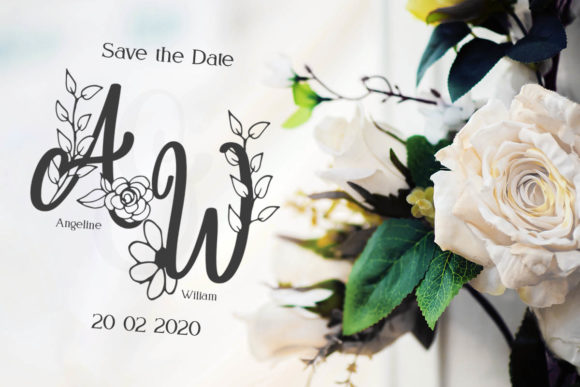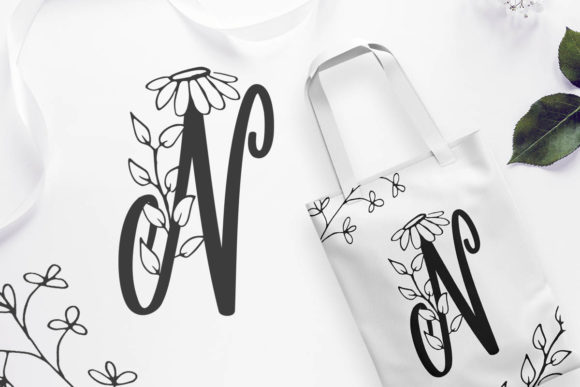
Discover the Charm of Angelina Monogram Font
Have you ever been in the middle of a design project, and suddenly, you’re stuck on finding the perfect font? I recall a wedding invitation project where I struggled to find a monogram font that felt authentic and elegant. That’s when I stumbled upon the beautiful Angelina Monogram Font. In this article, I’ll share my experience with this lovely font, its features, and how to make the most of it in your designs.
A Personal Review of Angelina Monogram Font
- ✨ Authentic feel: Angelina Monogram Font has a classic, sophisticated look that adds a touch of elegance to any design.
- ✅ Versatility: It’s perfect for various design projects, from wedding invitations and stationery to social media posts and greeting cards.
- 💕 Emotional connection: The font’s unique charm can evoke emotions and create a personal connection with your audience.
While Angelina Monogram Font is a beautiful addition to any design project, there are a few things to keep in mind:
- 🤔 Limited character set: As a monogram font, it has a limited character set, which might require additional design elements to complement it.
- ⚠️ Legibility at small sizes: Like many script fonts, Angelina Monogram Font may not be legible at very small sizes, so it’s best used at larger sizes or in headlines.
The Designer Inspiration Behind Angelina Monogram Font
Angelina Monogram Font was inspired by the classic typography of the early 20th century. The font’s designer aimed to create a monogram font that exudes elegance and sophistication, while still being approachable and friendly. The result is a beautiful font that’s perfect for a wide range of design projects.
| Font Name | Angelina Monogram Font |
| Author | Monogram Lovers |
Q: What type of projects is Angelina Monogram Font best suited for?
A: Angelina Monogram Font is perfect for wedding invitations, stationery, social media posts, greeting cards, and any other project that requires a touch of elegance and sophistication.
Q: Can I combine Angelina Monogram Font with other fonts?
A: Yes, Angelina Monogram Font can be paired with other fonts to create a unique look. Experiment with different font combinations to find the perfect balance for your design.